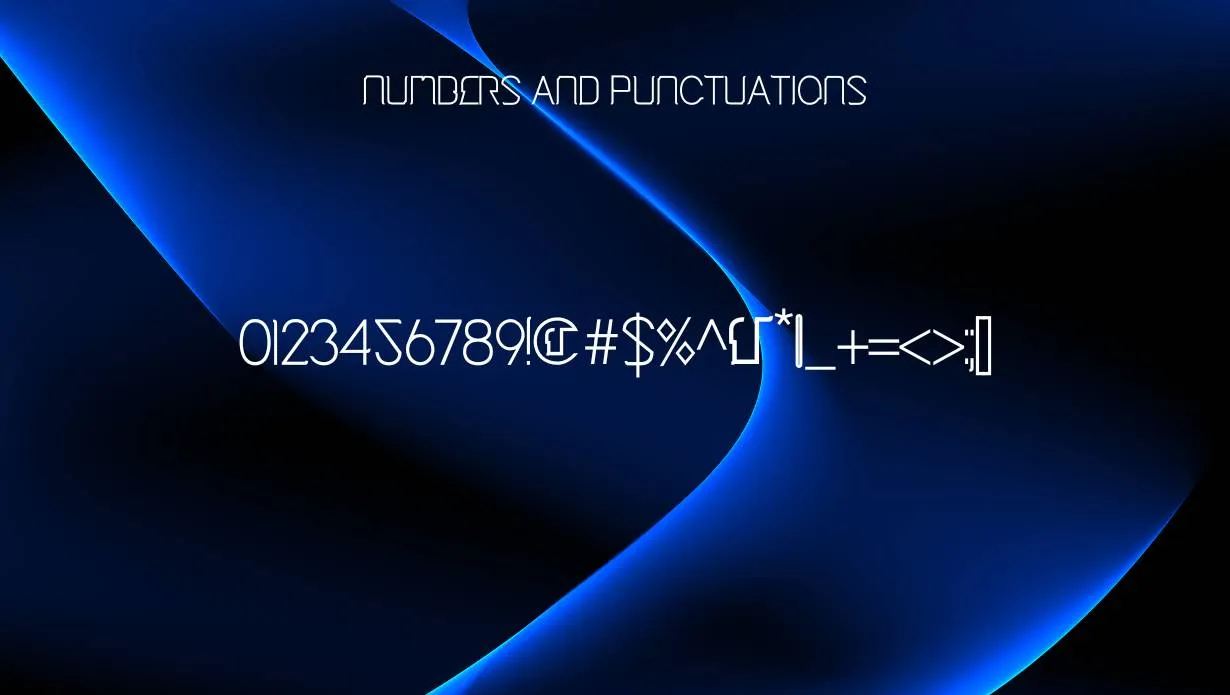
Cinga Font has high x-axis characters with a unique and attractive look. This typeface was designed by a well-known German typographer named Daniel Angermann. This typeface belongs to the fancy font family.
This typeface is inspired by the American multinational insurance company Cigna. You can pair this fancy typeface with the abc logo font to startle the audience.
View of Cinga Font
Cinga Font Info
| Name | Cinga Font |
| Designer | Daniel Angermann |